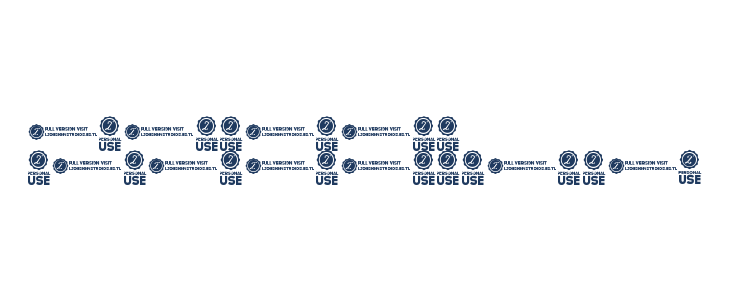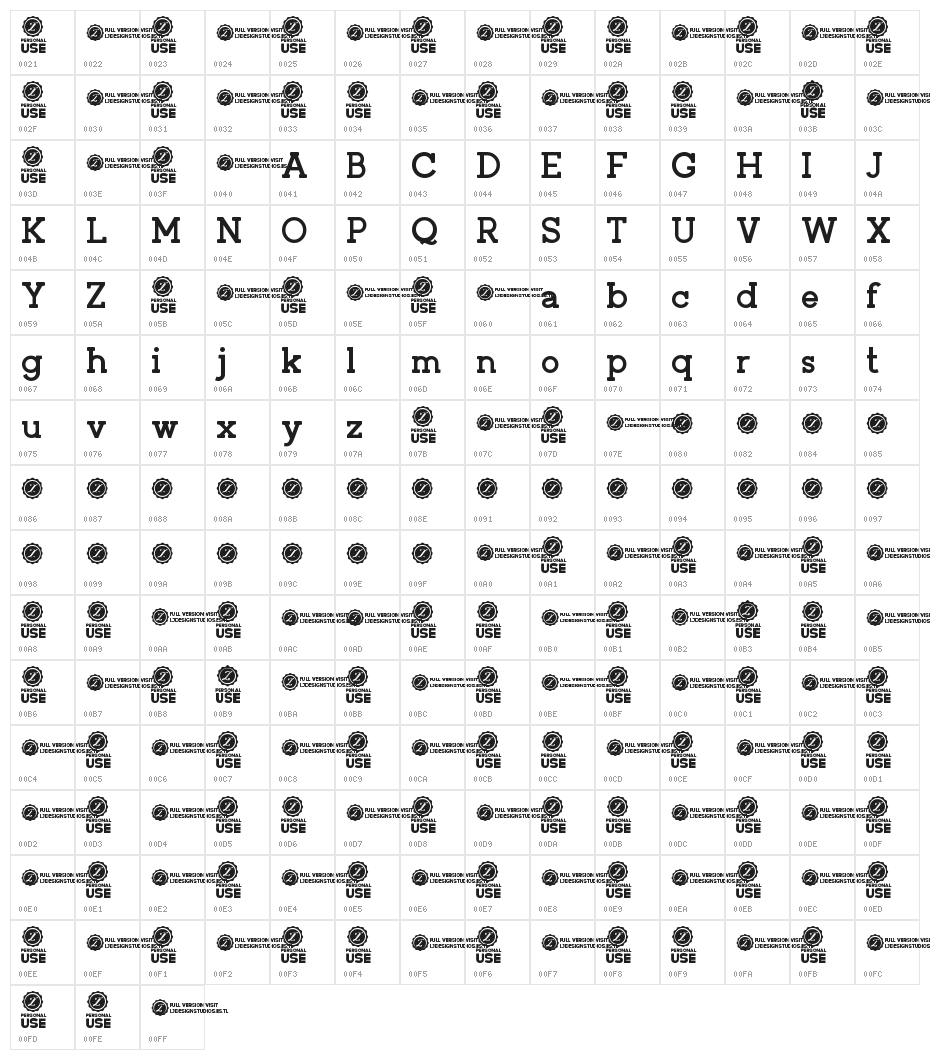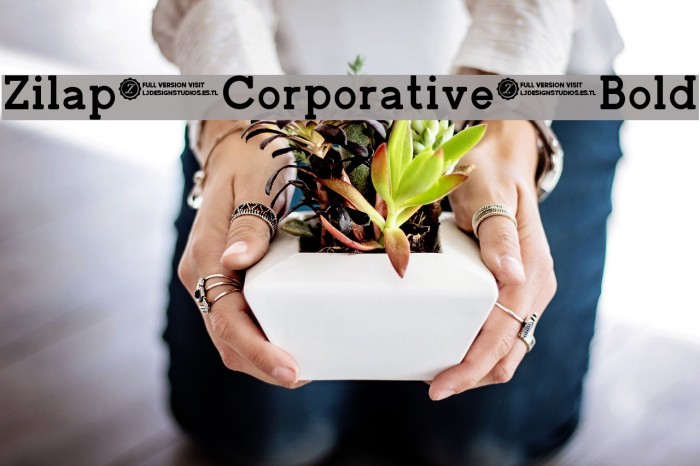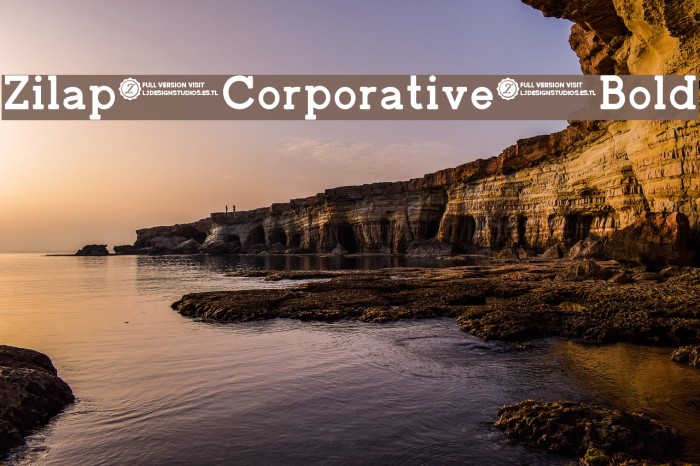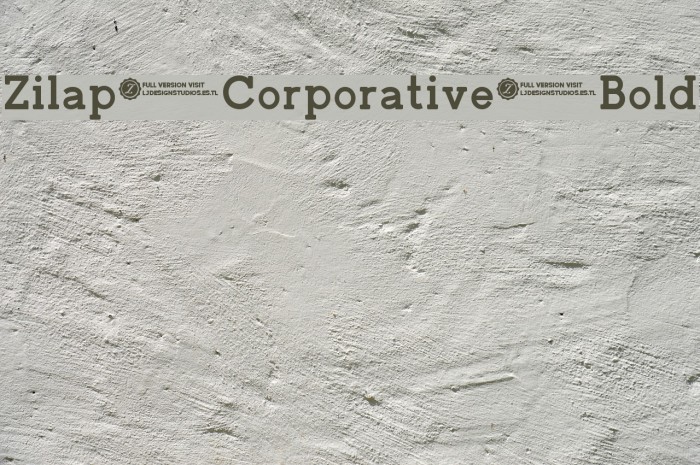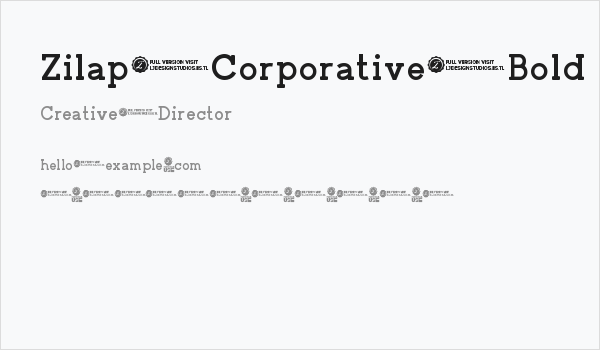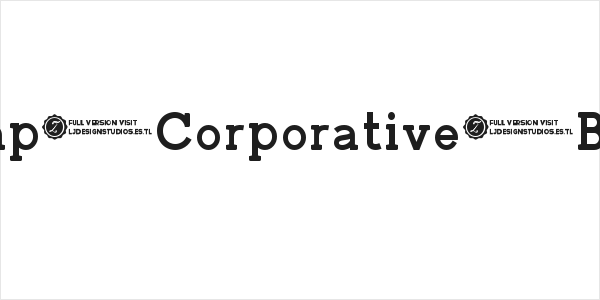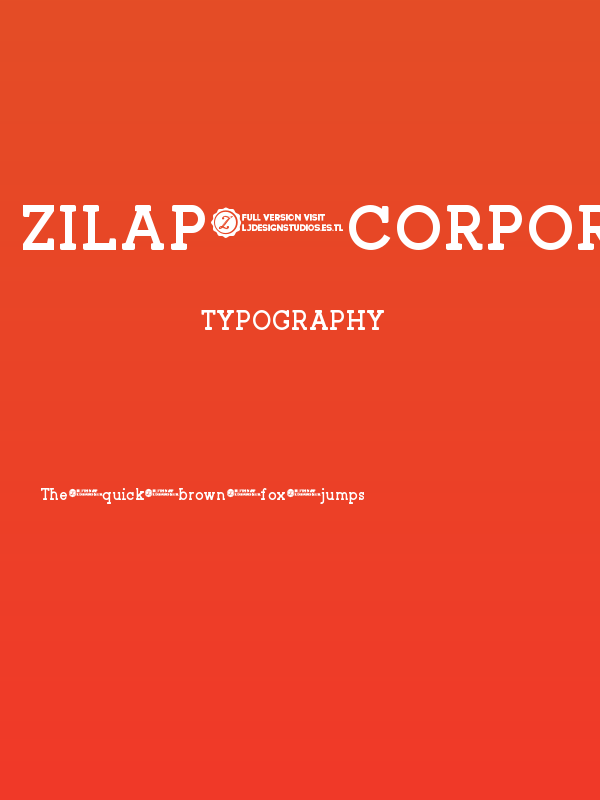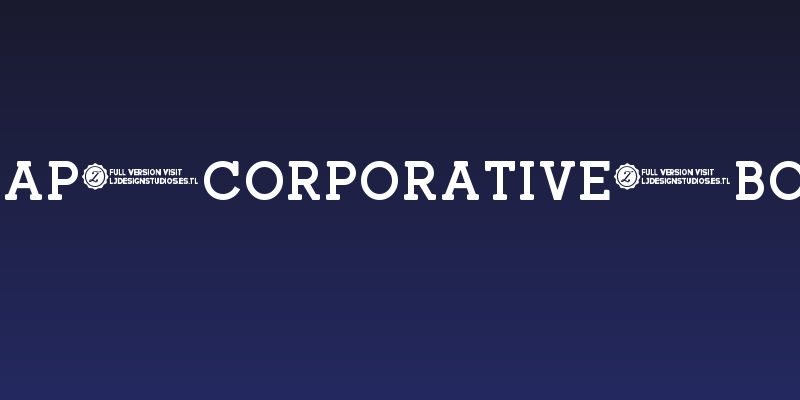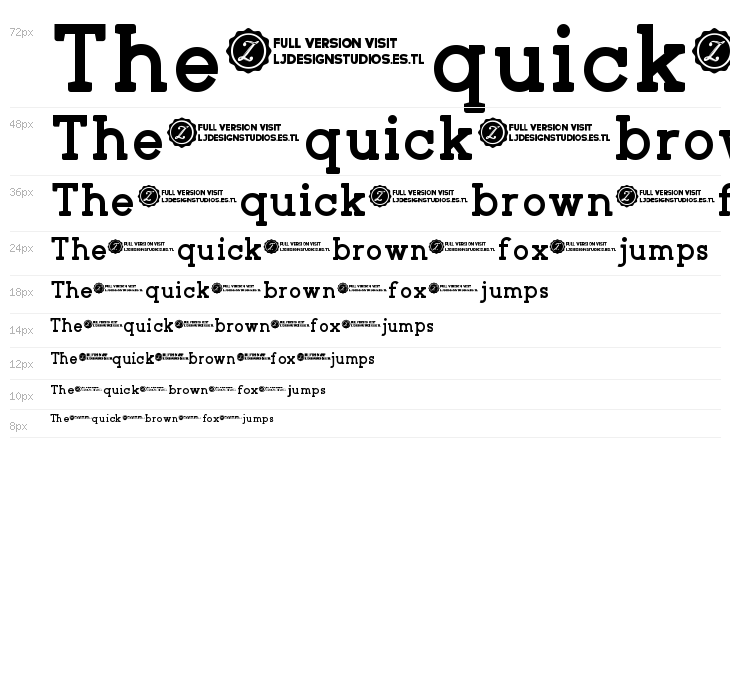
Zilap Corporative Bold Font
Zilap Corporative Bold Description
This font features a bold and robust design with a strong presence, characterized by thick strokes and a consistent weight throughout each character. The letters are well-defined with a slight curvature that adds a touch of softness to the otherwise sturdy appearance. The uppercase and lowercase letters maintain a uniform style, ensuring readability and a cohesive look. The numerals and special characters are designed to match the overall boldness, making them stand out effectively. This font is ideal for projects that require a strong visual impact and clear communication.
| Proposed Projects | Ideal for branding, headlines, posters, and any design requiring a strong visual impact. |